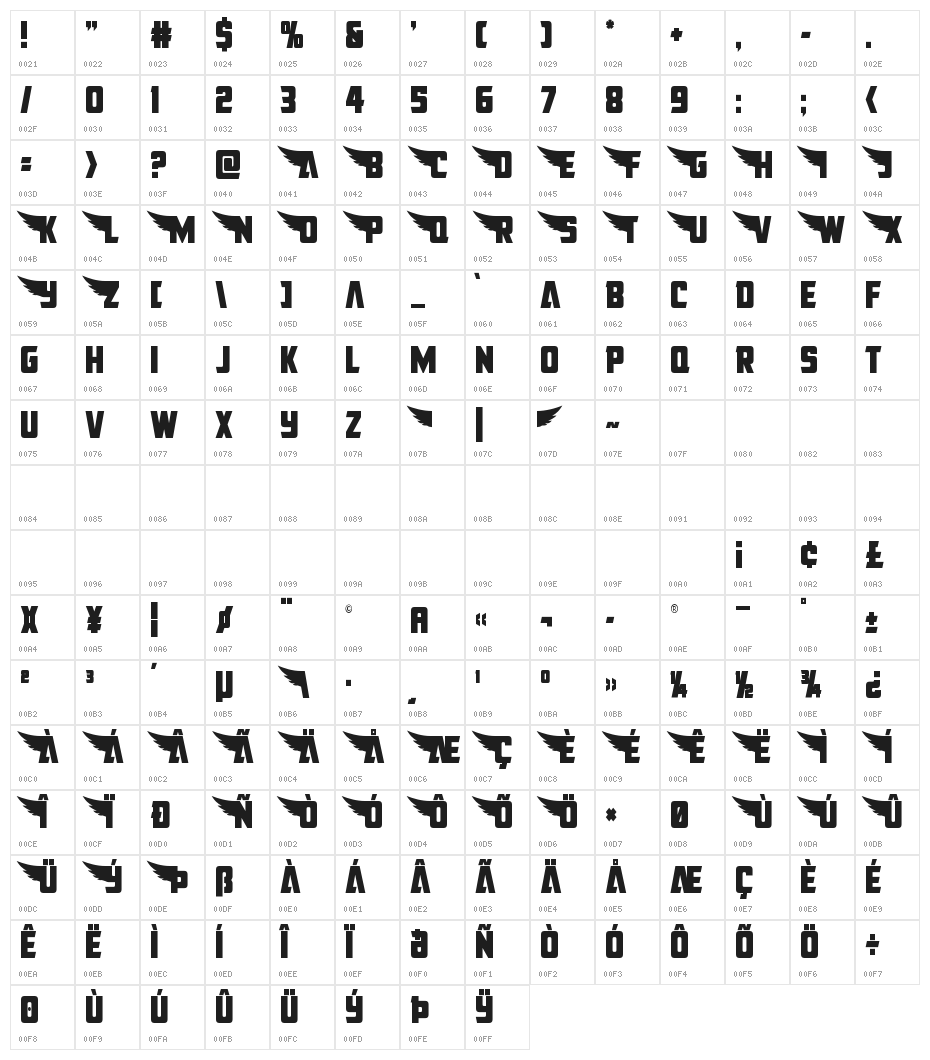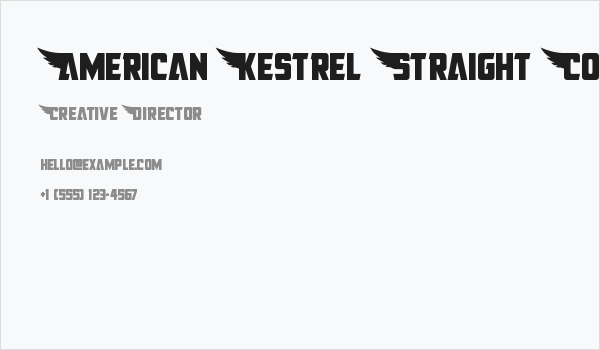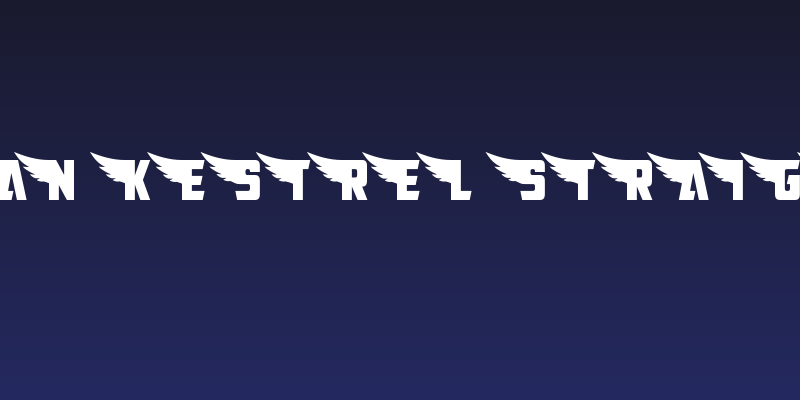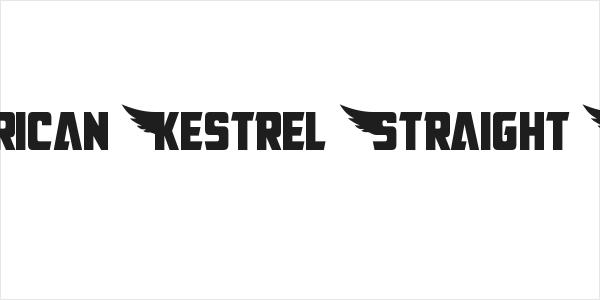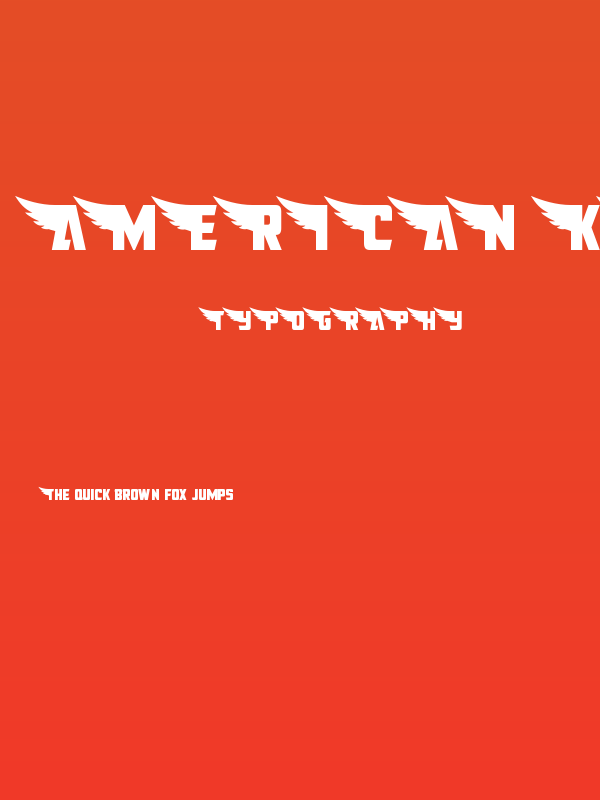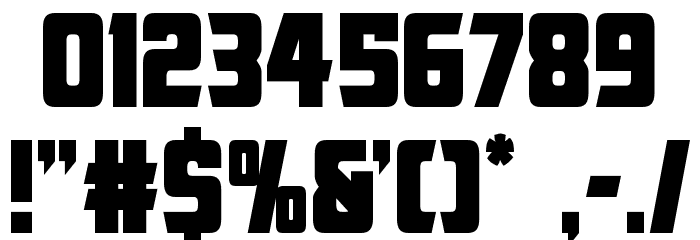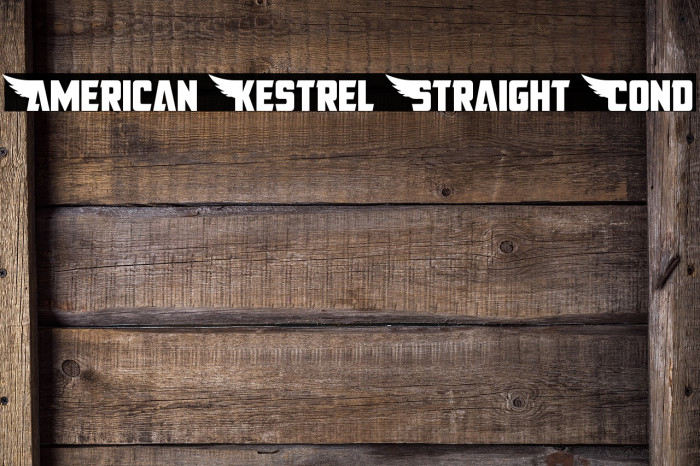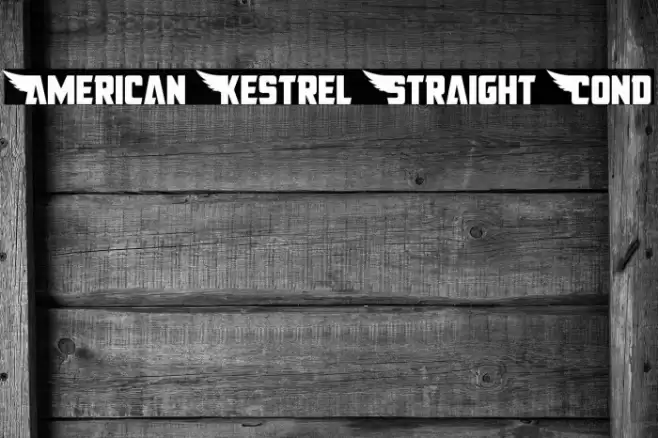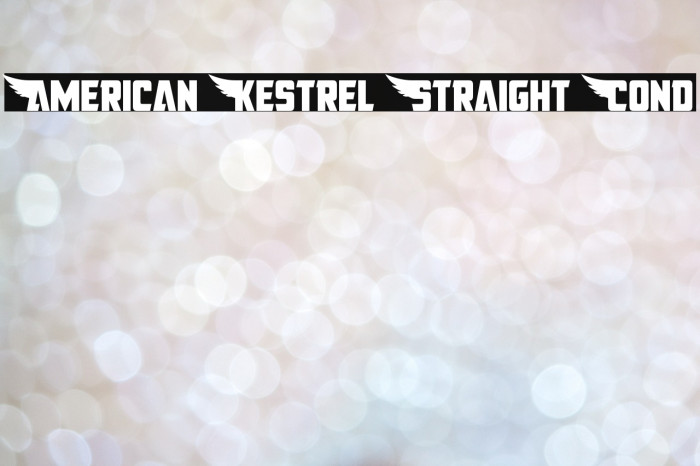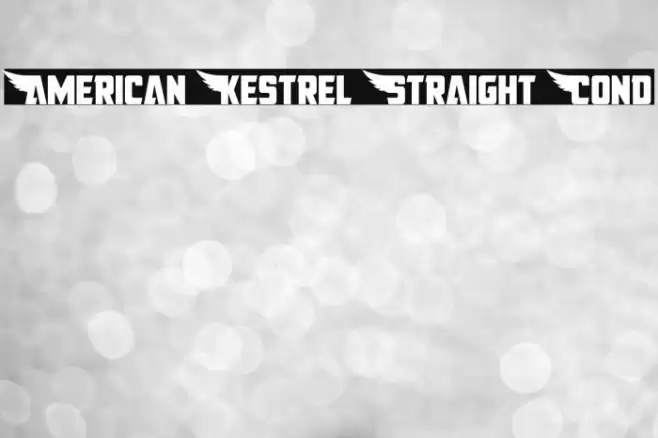
American Kestrel Straight Cond Font
American Kestrel Straight Cond Description
This font features a bold and striking design with a unique wing-like extension on each character, giving it a dynamic and adventurous feel. The uppercase letters are particularly prominent, with strong geometric shapes and a solid presence. The numbers and special characters maintain this boldness, ensuring consistency across all elements. The font's style is reminiscent of aviation or sports themes, making it ideal for projects that require a sense of movement and energy.
| Proposed Projects | Ideal for sports branding, aviation-themed designs, dynamic posters, and logos requiring a bold statement. |